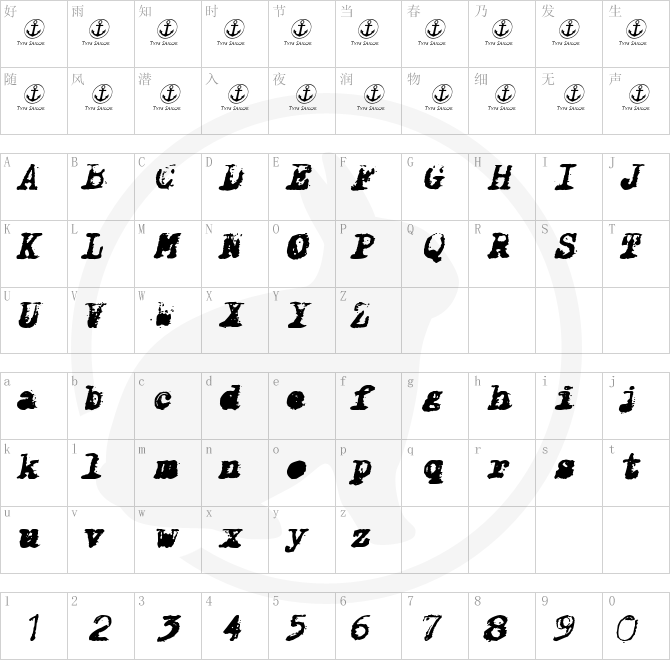
- Font Name:X-Classified
X-Classified-Italic.ttf is a very beautiful artistic font, X-Classified-Italic.ttf is widely used in the design and printing of various books and pictures,X-Classified-Italic.ttf has a strong visual impact,X-Classified-Italic.ttf is a commonly used font in newspapers, magazines and books, and is used in posters, e-commerce Poster design, store design, logo design, font design and other fields.X-Classified-Italic.